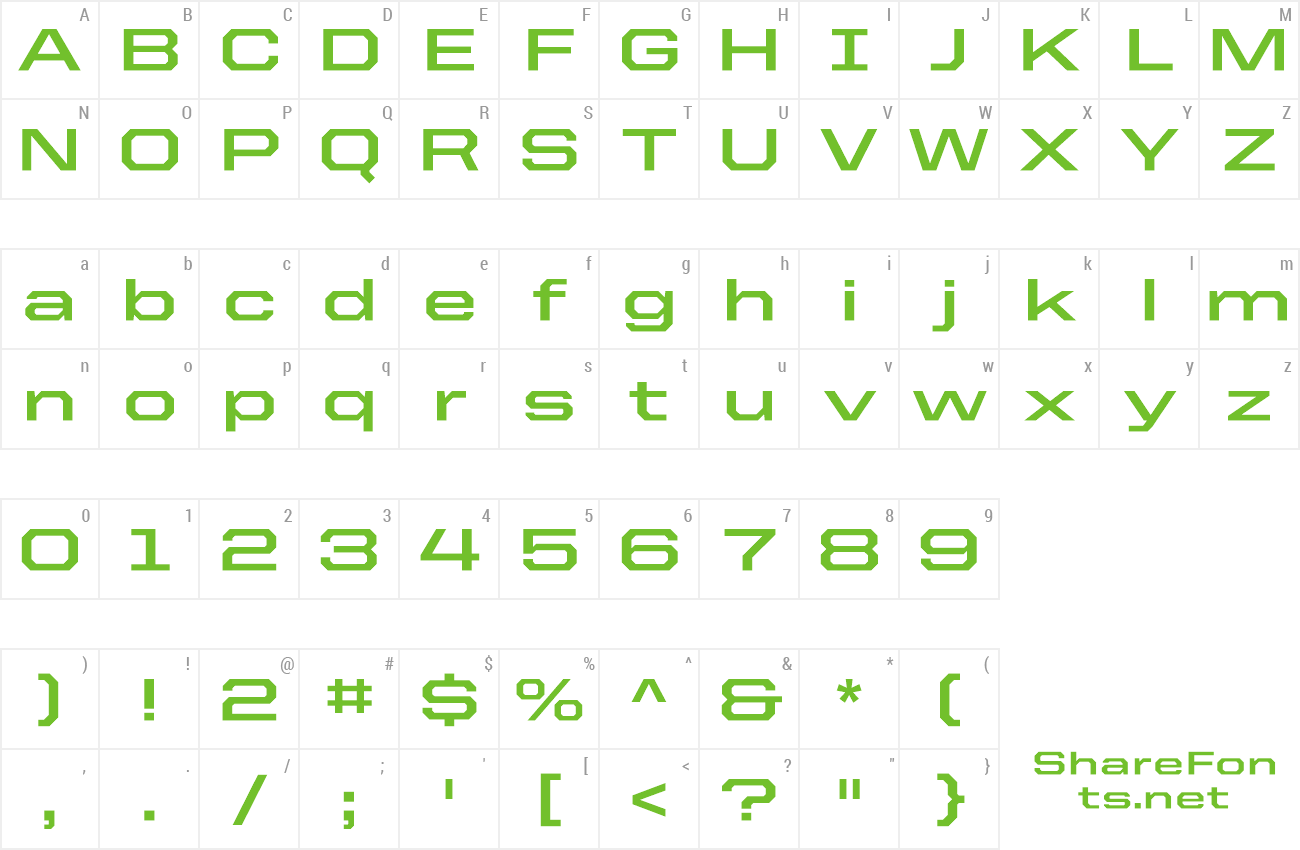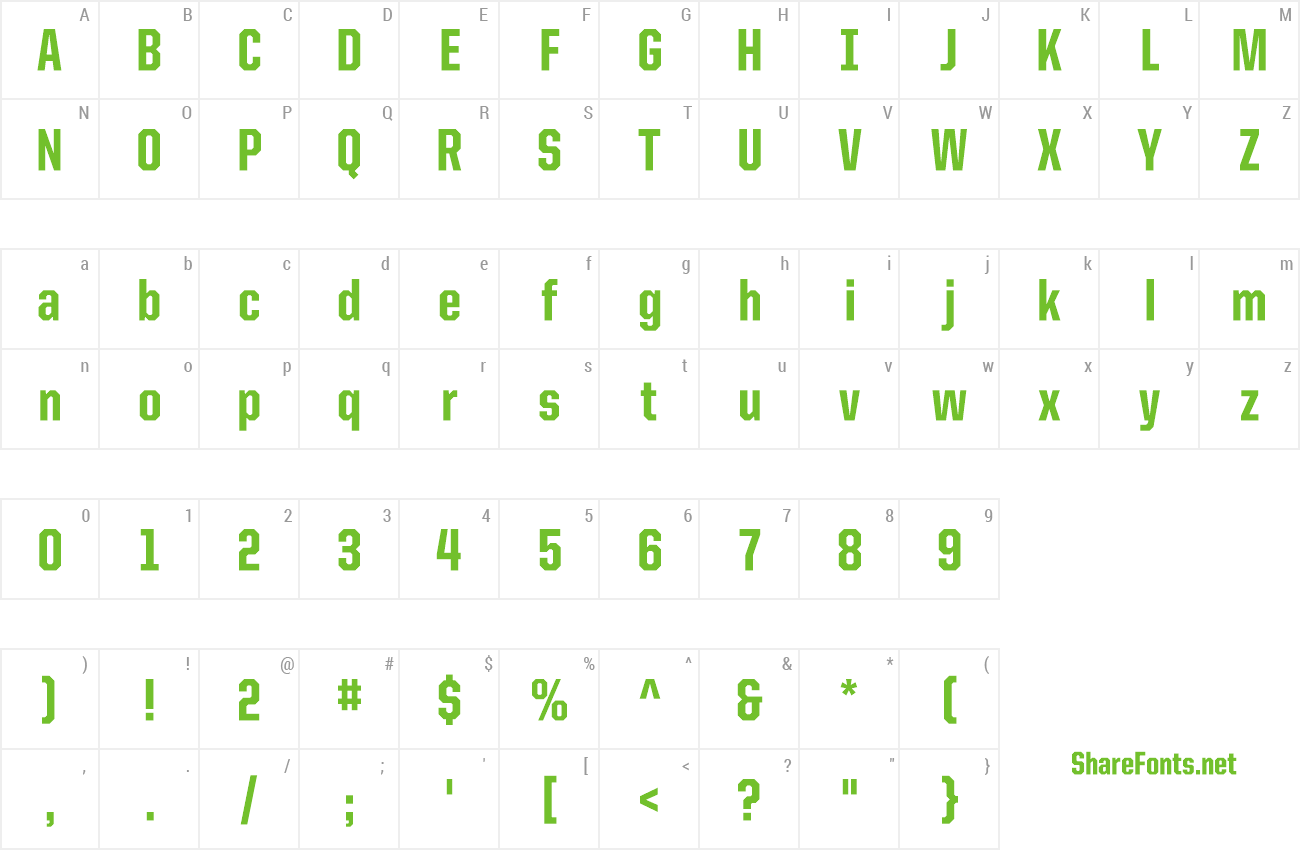
United Sans Font
United Sans Font - This is a great sans serif typeface with excellent features. Web december 9, 2021 by eduard hoffmann united sans has been constructed with a clean and elegant texture appearance with a vast number of styles of its own. United sans font was created by tal leming in 2006. This amazing font family is a member of the. Web a remarkable sans serif typeface, known as united sans font and it was designed and created in 2006 by an experienced graphic designer tal leming, who has a great name in the font marketplace. Web united sans condensed thin by house industries from the united sans font collection Web united sans reg font. Using united sans font for. Web united sans font free download.
This amazing font family is a member of the. United sans font was created by tal leming in 2006. Web united sans reg font. Web december 9, 2021 by eduard hoffmann united sans has been constructed with a clean and elegant texture appearance with a vast number of styles of its own. Web united sans condensed thin by house industries from the united sans font collection Using united sans font for. Web united sans font free download. Web a remarkable sans serif typeface, known as united sans font and it was designed and created in 2006 by an experienced graphic designer tal leming, who has a great name in the font marketplace. This is a great sans serif typeface with excellent features.
Web united sans font free download. This amazing font family is a member of the. United sans font was created by tal leming in 2006. Web december 9, 2021 by eduard hoffmann united sans has been constructed with a clean and elegant texture appearance with a vast number of styles of its own. Using united sans font for. Web united sans reg font. This is a great sans serif typeface with excellent features. Web a remarkable sans serif typeface, known as united sans font and it was designed and created in 2006 by an experienced graphic designer tal leming, who has a great name in the font marketplace. Web united sans condensed thin by house industries from the united sans font collection
Web december 9, 2021 by eduard hoffmann united sans has been constructed with a clean and elegant texture appearance with a vast number of styles of its own. United sans font was created by tal leming in 2006. Web united sans reg font. This amazing font family is a member of the. Using united sans font for.
Web united sans font free download. Web united sans reg font. United sans font was created by tal leming in 2006. Web a remarkable sans serif typeface, known as united sans font and it was designed and created in 2006 by an experienced graphic designer tal leming, who has a great name in the font marketplace. This amazing font family.
This is a great sans serif typeface with excellent features. United sans font was created by tal leming in 2006. Web a remarkable sans serif typeface, known as united sans font and it was designed and created in 2006 by an experienced graphic designer tal leming, who has a great name in the font marketplace. Using united sans font for..
Web a remarkable sans serif typeface, known as united sans font and it was designed and created in 2006 by an experienced graphic designer tal leming, who has a great name in the font marketplace. Web united sans condensed thin by house industries from the united sans font collection This is a great sans serif typeface with excellent features. Web.
Web december 9, 2021 by eduard hoffmann united sans has been constructed with a clean and elegant texture appearance with a vast number of styles of its own. Web united sans reg font. Web united sans font free download. Web a remarkable sans serif typeface, known as united sans font and it was designed and created in 2006 by an.
Web december 9, 2021 by eduard hoffmann united sans has been constructed with a clean and elegant texture appearance with a vast number of styles of its own. Web united sans reg font. This is a great sans serif typeface with excellent features. This amazing font family is a member of the. Web united sans condensed thin by house industries.
Web united sans font free download. Web a remarkable sans serif typeface, known as united sans font and it was designed and created in 2006 by an experienced graphic designer tal leming, who has a great name in the font marketplace. Using united sans font for. This amazing font family is a member of the. United sans font was created.
Using united sans font for. Web united sans font free download. Web united sans condensed thin by house industries from the united sans font collection This amazing font family is a member of the. Web december 9, 2021 by eduard hoffmann united sans has been constructed with a clean and elegant texture appearance with a vast number of styles of.
This is a great sans serif typeface with excellent features. Using united sans font for. Web united sans condensed thin by house industries from the united sans font collection This amazing font family is a member of the. Web united sans font free download.
Web december 9, 2021 by eduard hoffmann united sans has been constructed with a clean and elegant texture appearance with a vast number of styles of its own. This amazing font family is a member of the. Web united sans condensed thin by house industries from the united sans font collection Using united sans font for. Web a remarkable sans.
Web United Sans Reg Font.
United sans font was created by tal leming in 2006. Web united sans condensed thin by house industries from the united sans font collection Using united sans font for.